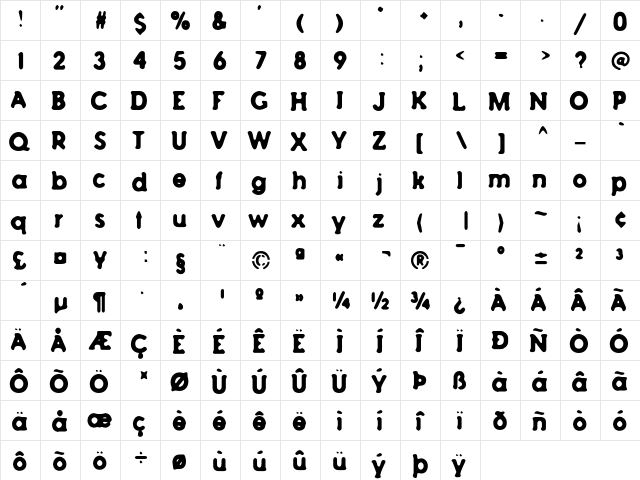
AchillesBlur Black
Design Context for AchillesBlur Typeface
AchillesBlur takes a measured approach to typography — its balanced proportions and neutral character make it a reliable workhorse for both digital and print work.